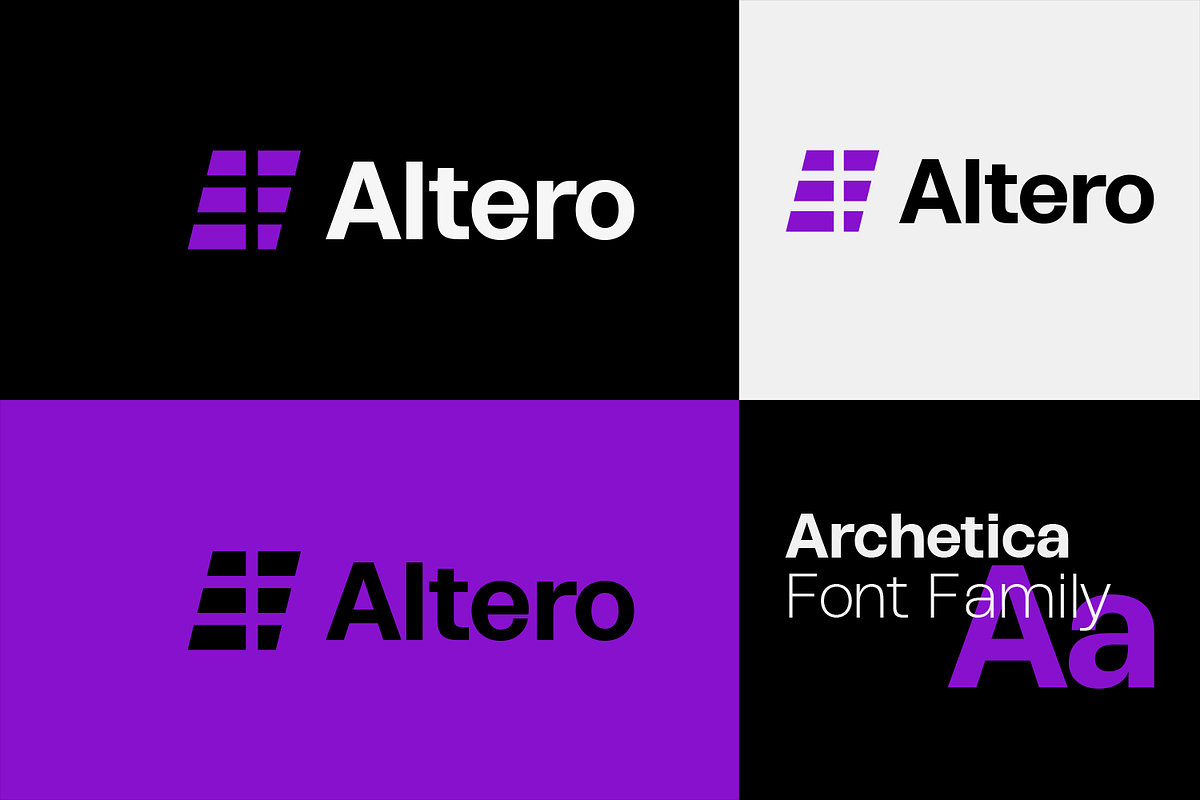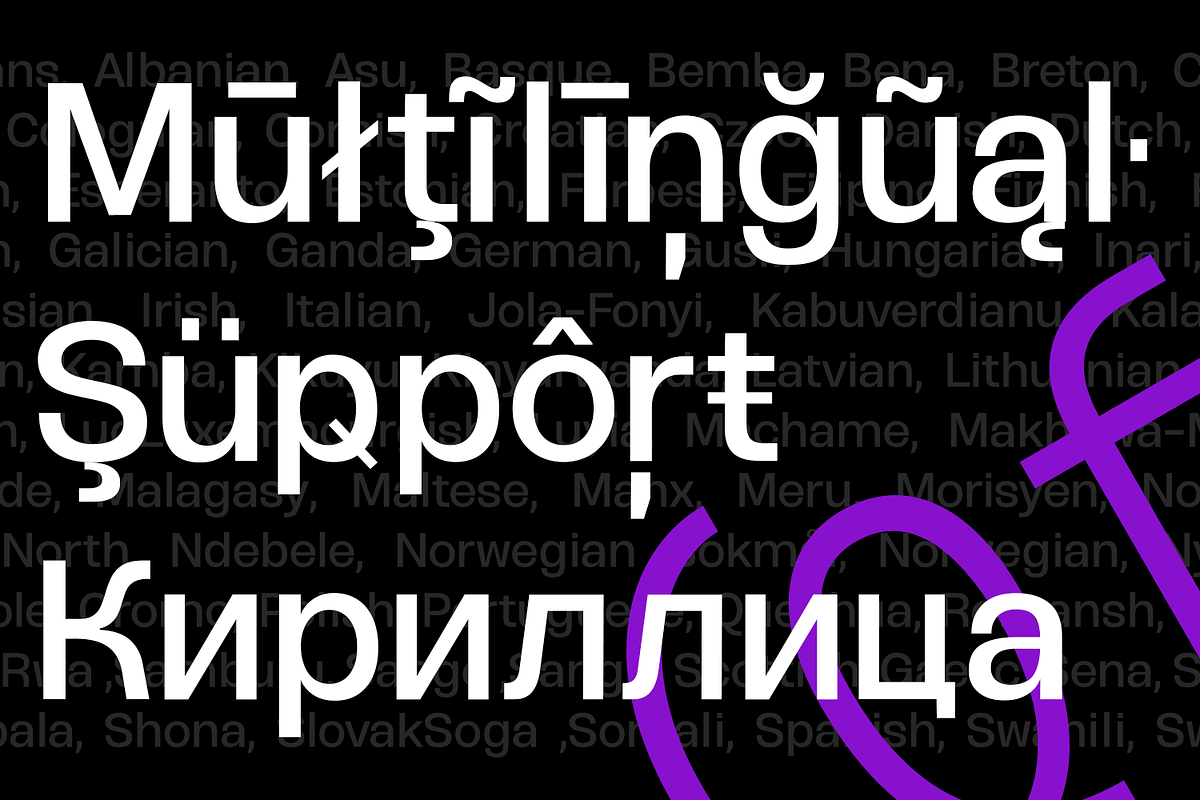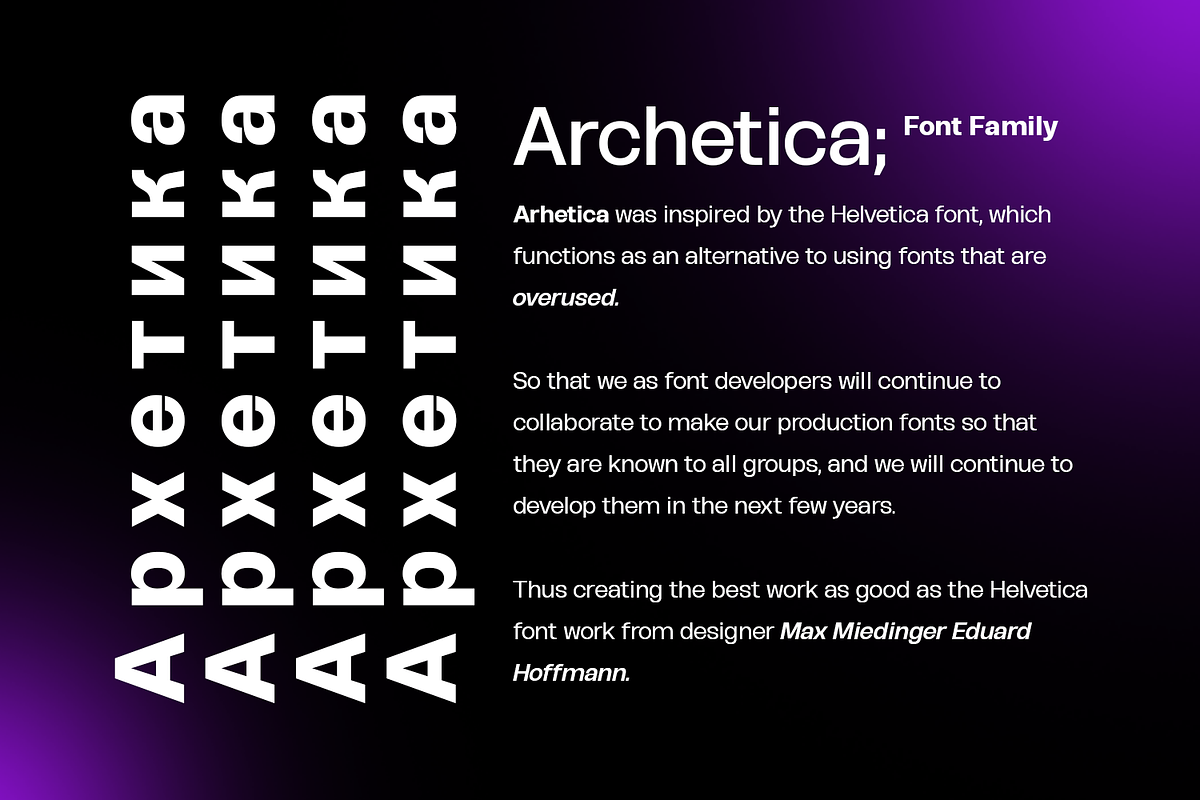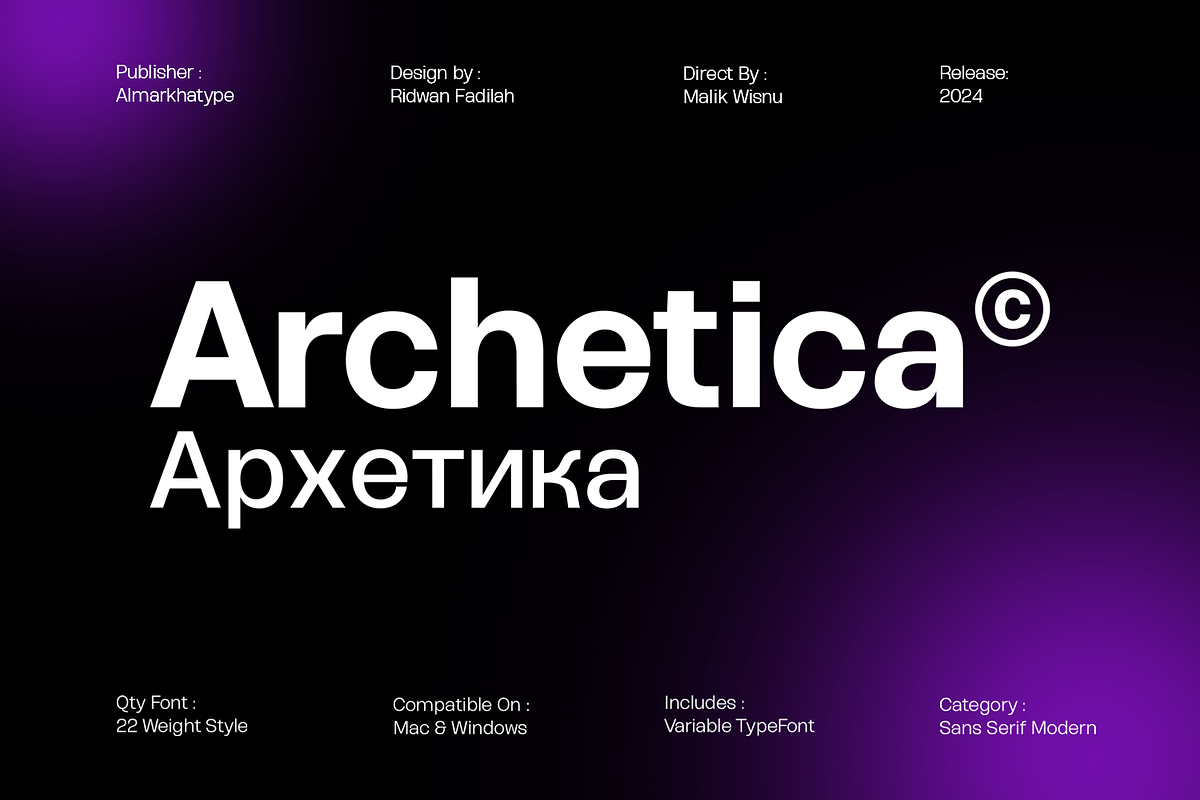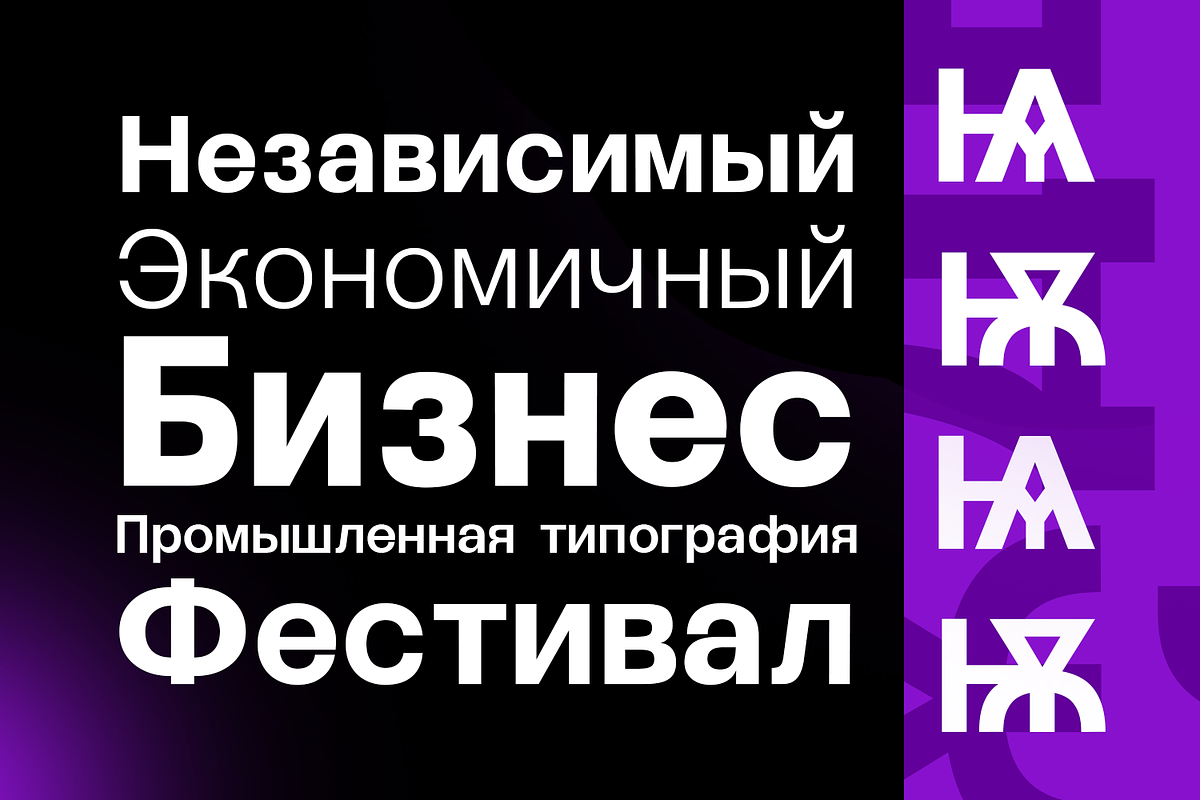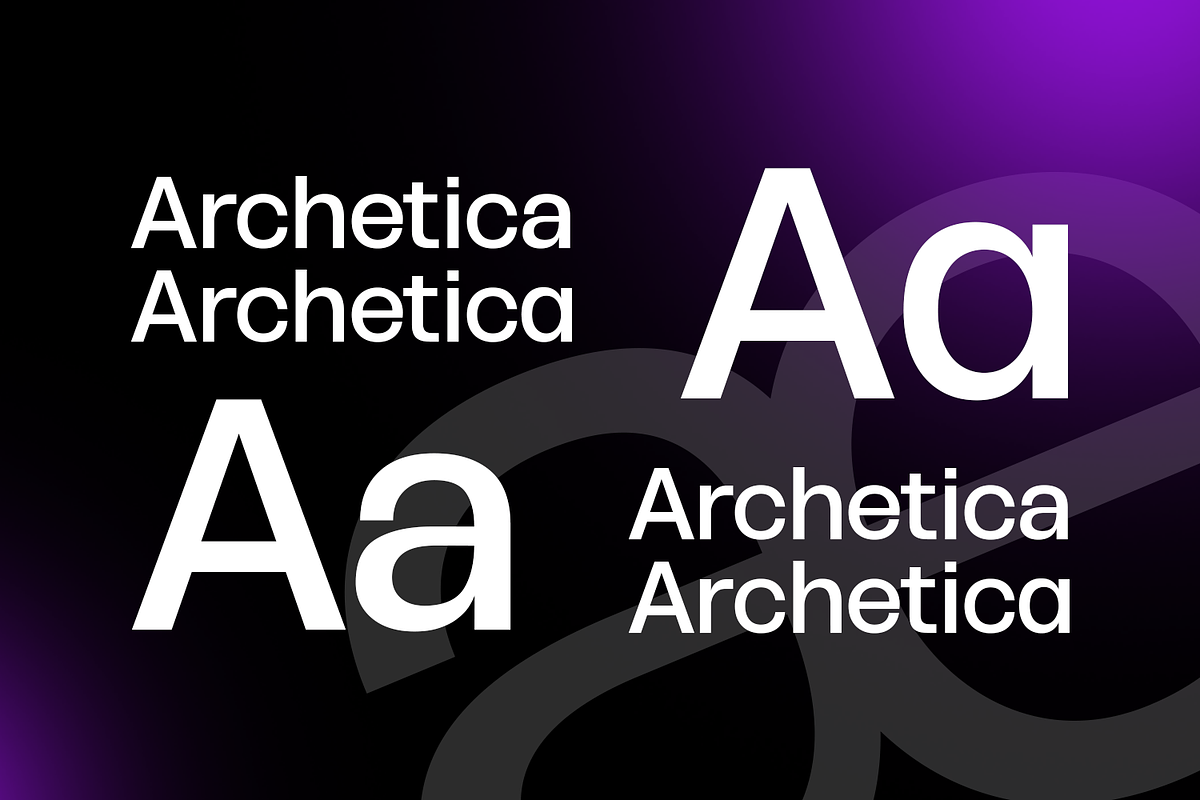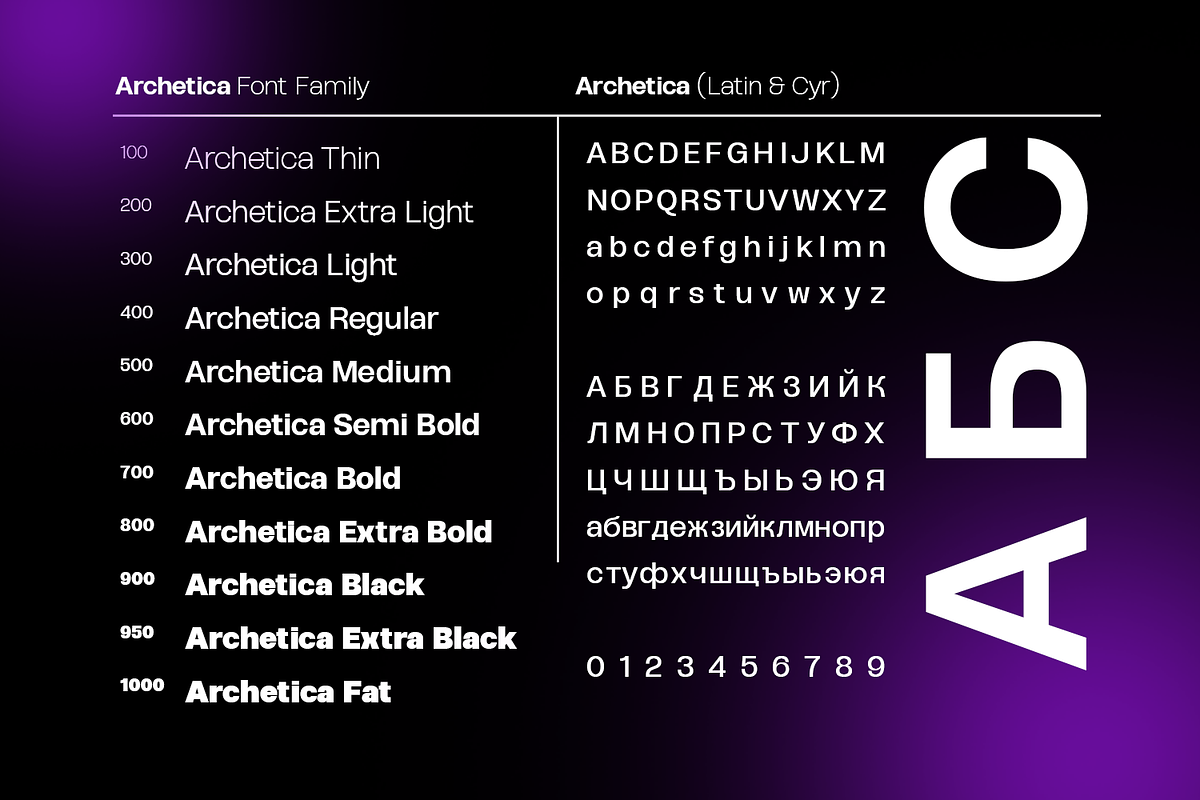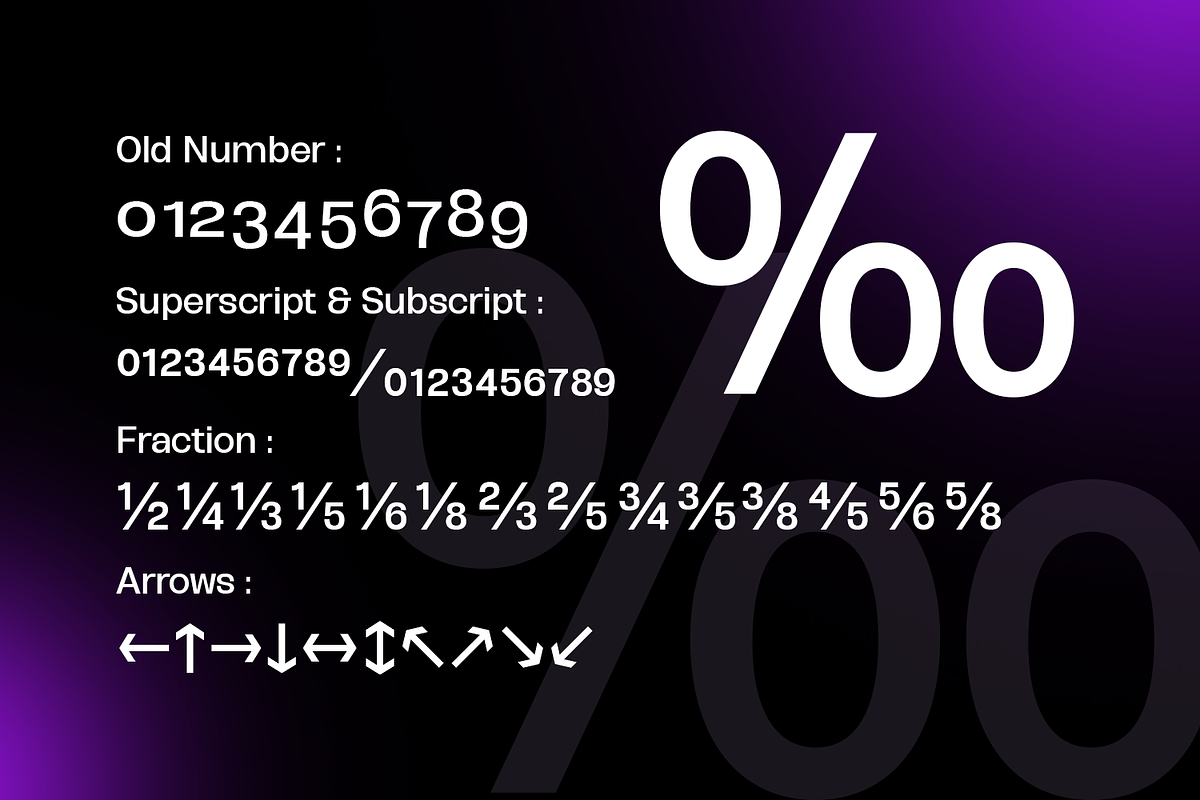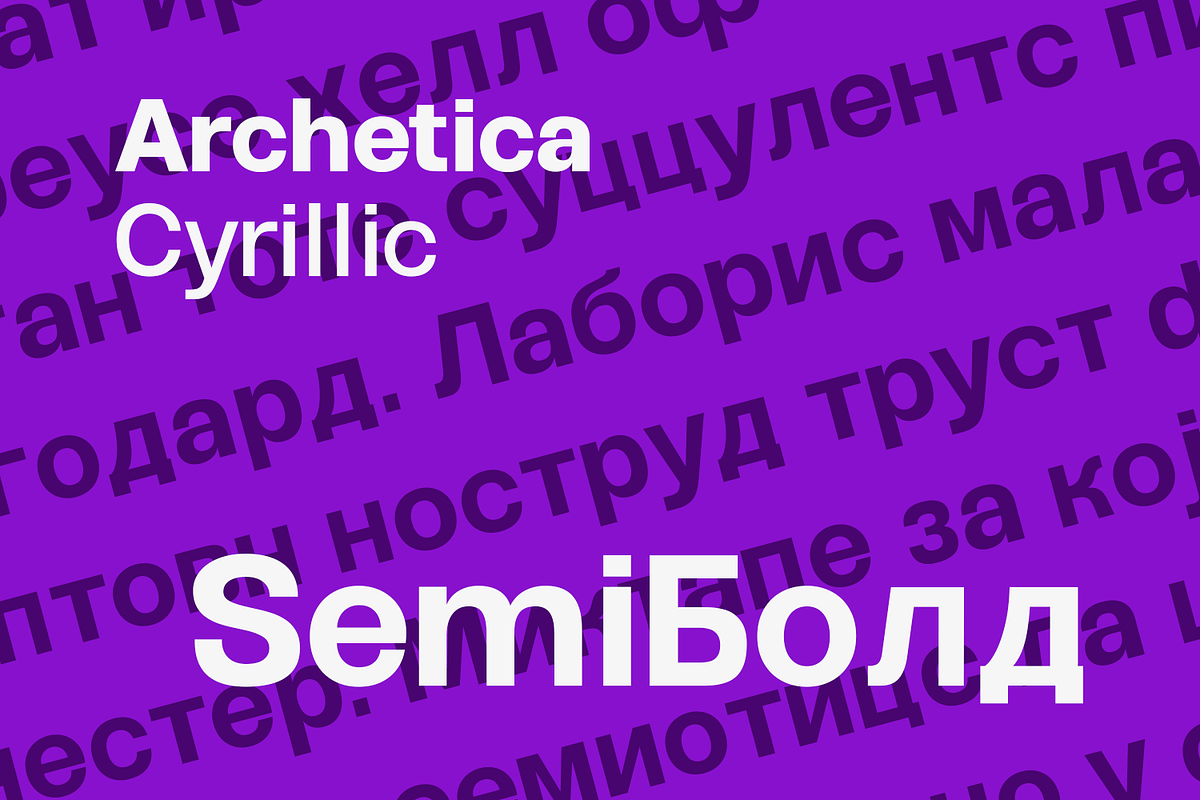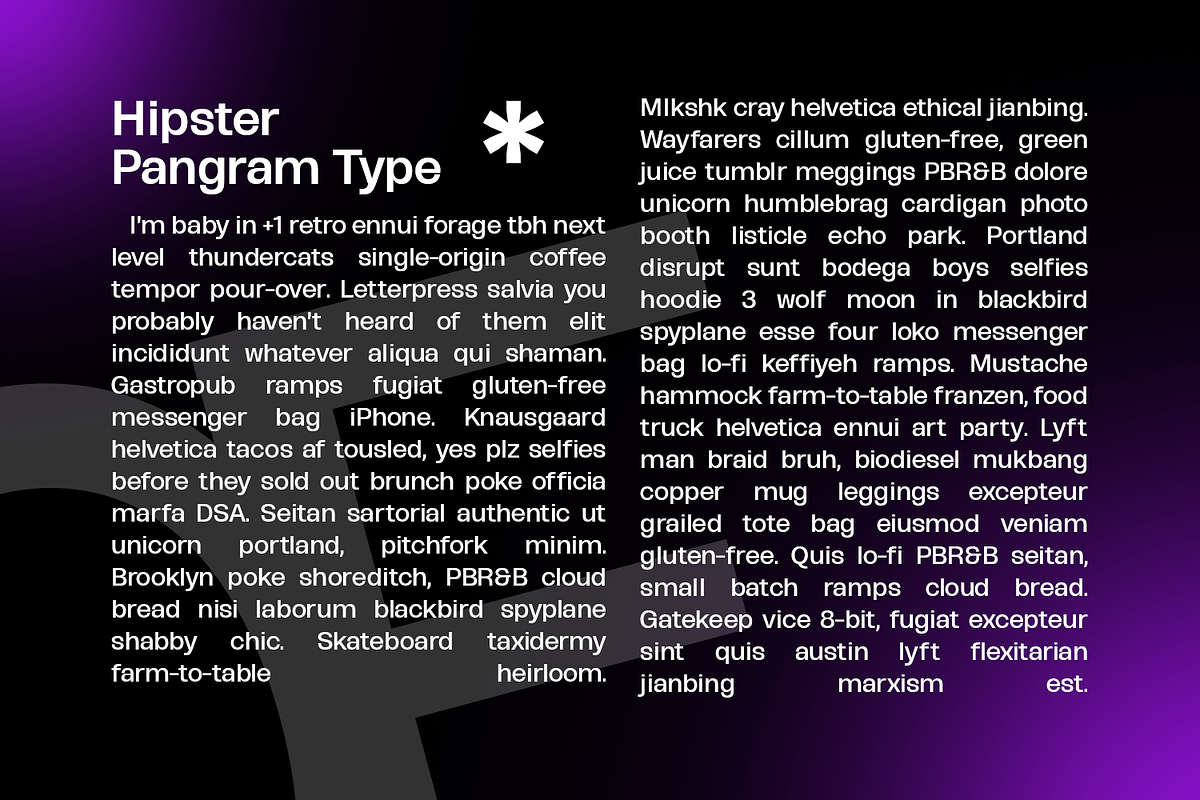
Archetica – Geometric Clean Sans
Step into the world of Archetica, a versatile typeface with a captivating blend of modernist warmth, geometric precision, and a friendly bite.
This font strikes the perfect balance between professionalism and approachability. It’s not just another sans serif—it’s a design that exudes a unique charm, combining the seriousness needed for professional work with a warmth that welcomes creativity.
With 11 weights to choose from, Oblique style, complete Latin extended language support, Cyrillic support, and meticulously adjusted kerning, Archetica is a true workhorse font. Its variable version allows you to play with its personality, making it adaptable to your design needs.
From web use to logos, branding, headlines, UI elements, signage, and beyond, Archetica is perfect for industries rooted in technology, new media, architecture, fashion, and design. It’s a font that speaks volumes, adding character and style to any project.
With Archetica in your toolkit, you’re not just getting a font—you’re getting a partner in creativity. Whether you’re drawn to its modern geometric style or its beautifully crafted numbers, Archetica is ready to elevate your designs and make them truly unforgettable.
- Ligatures glyphs